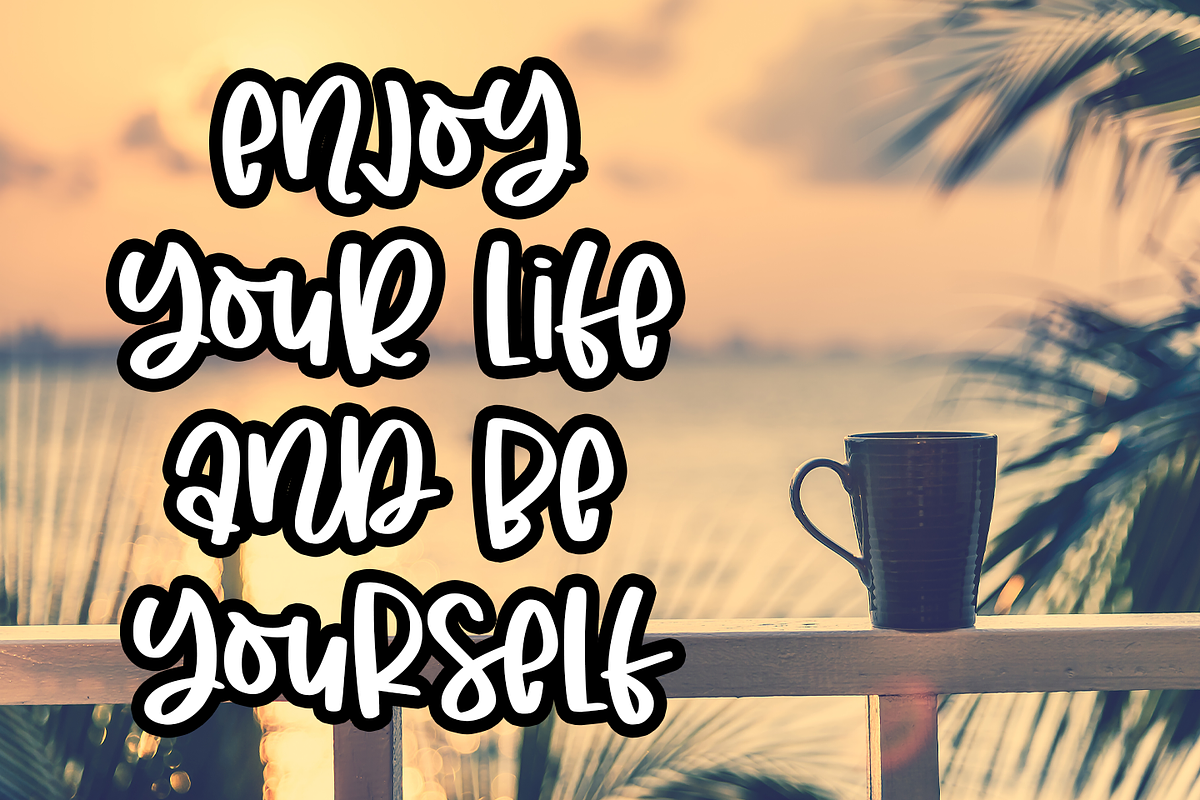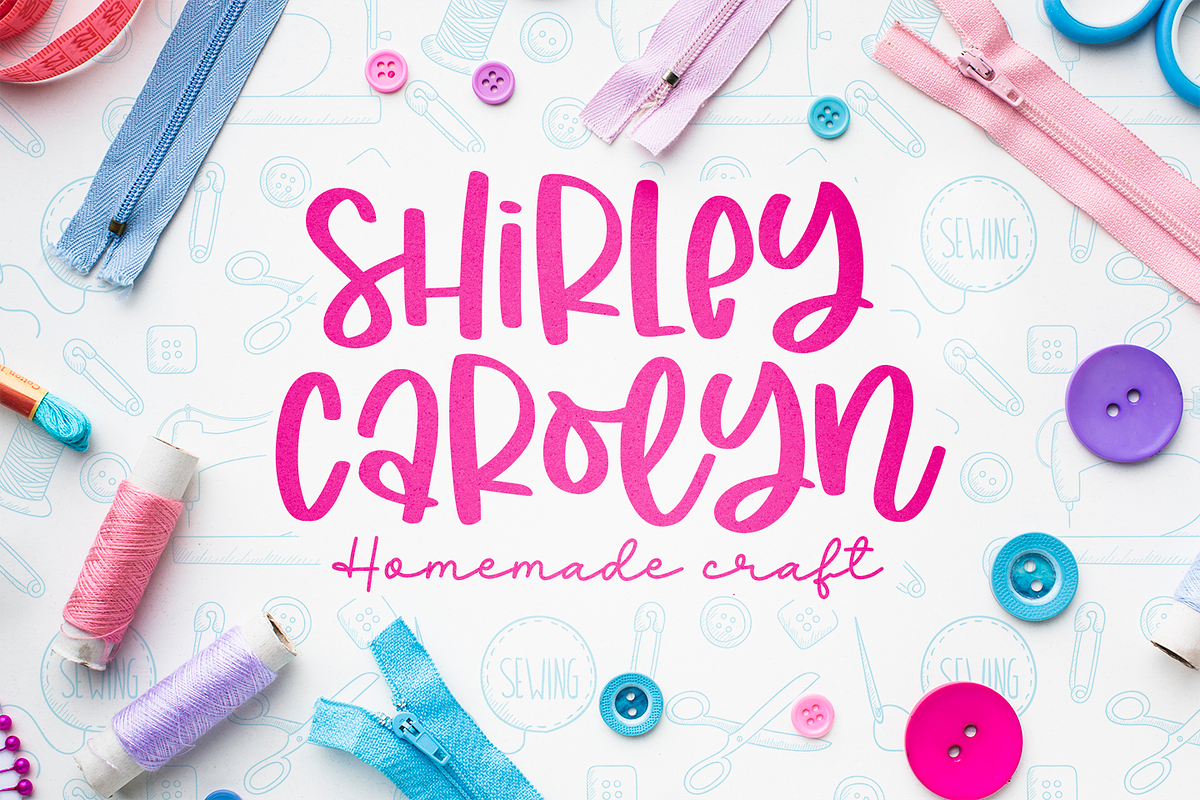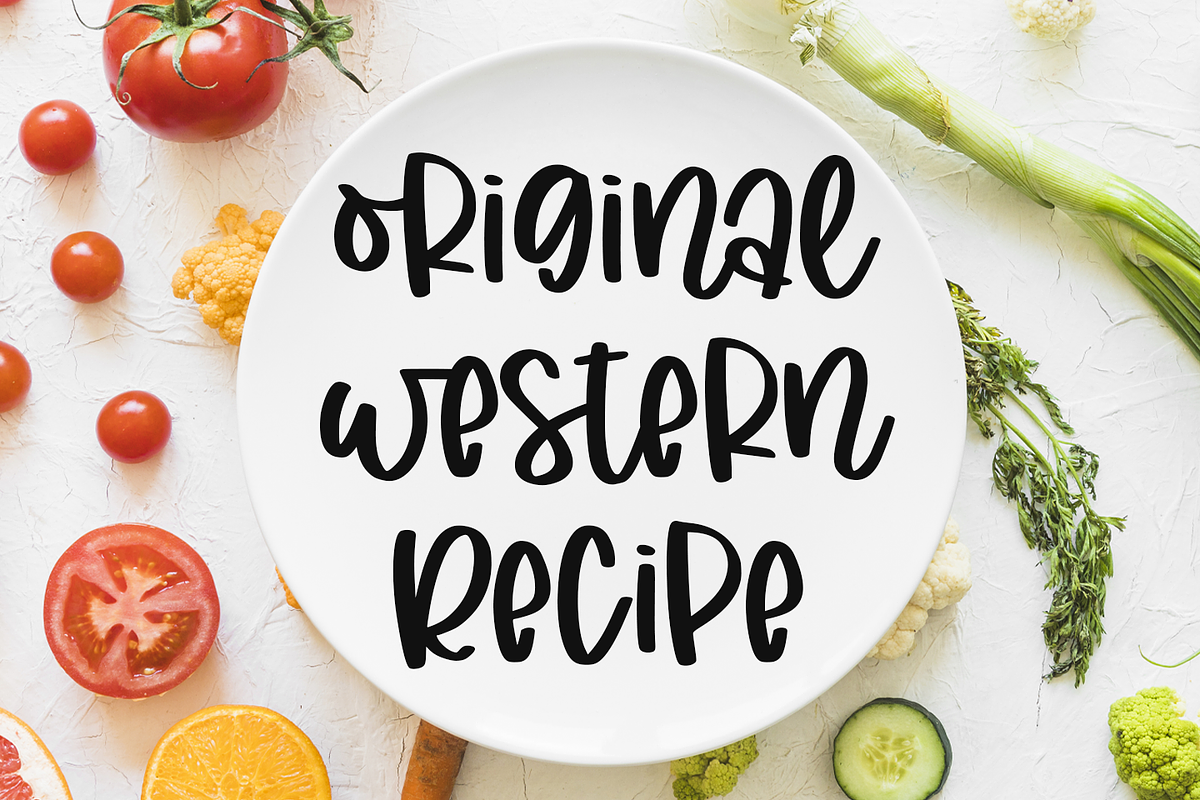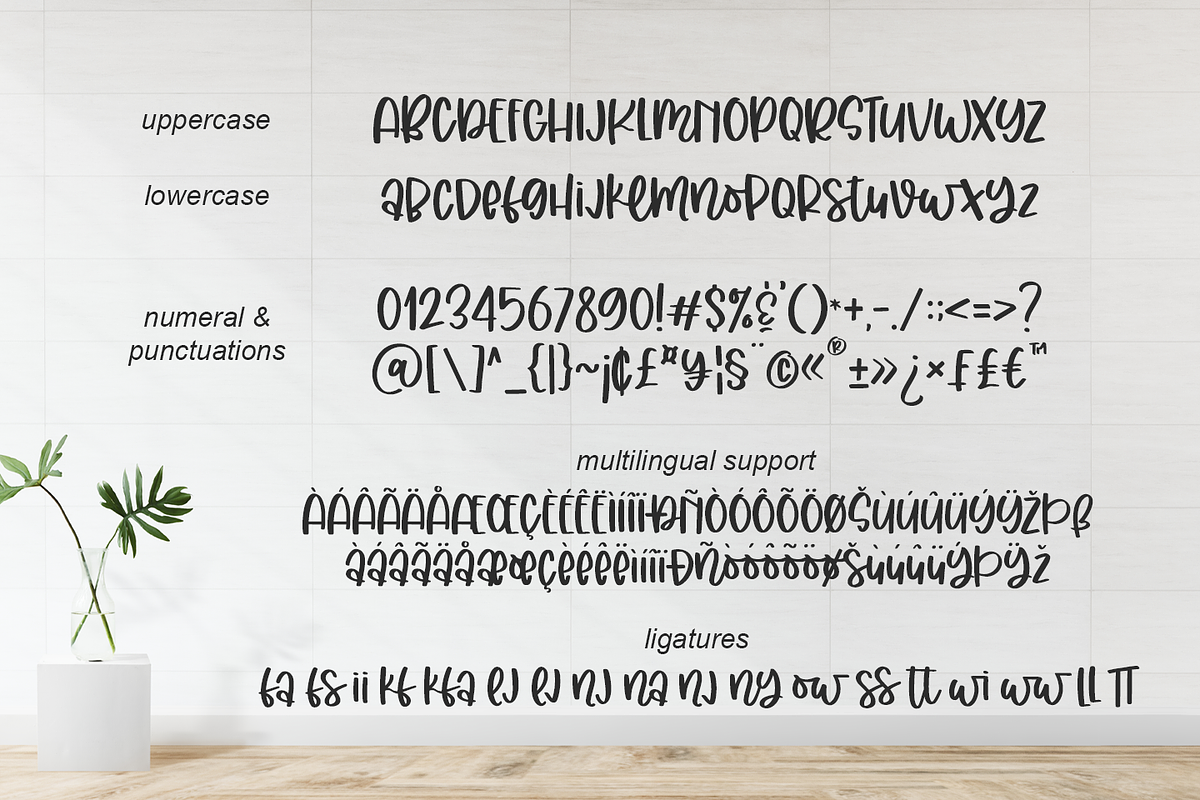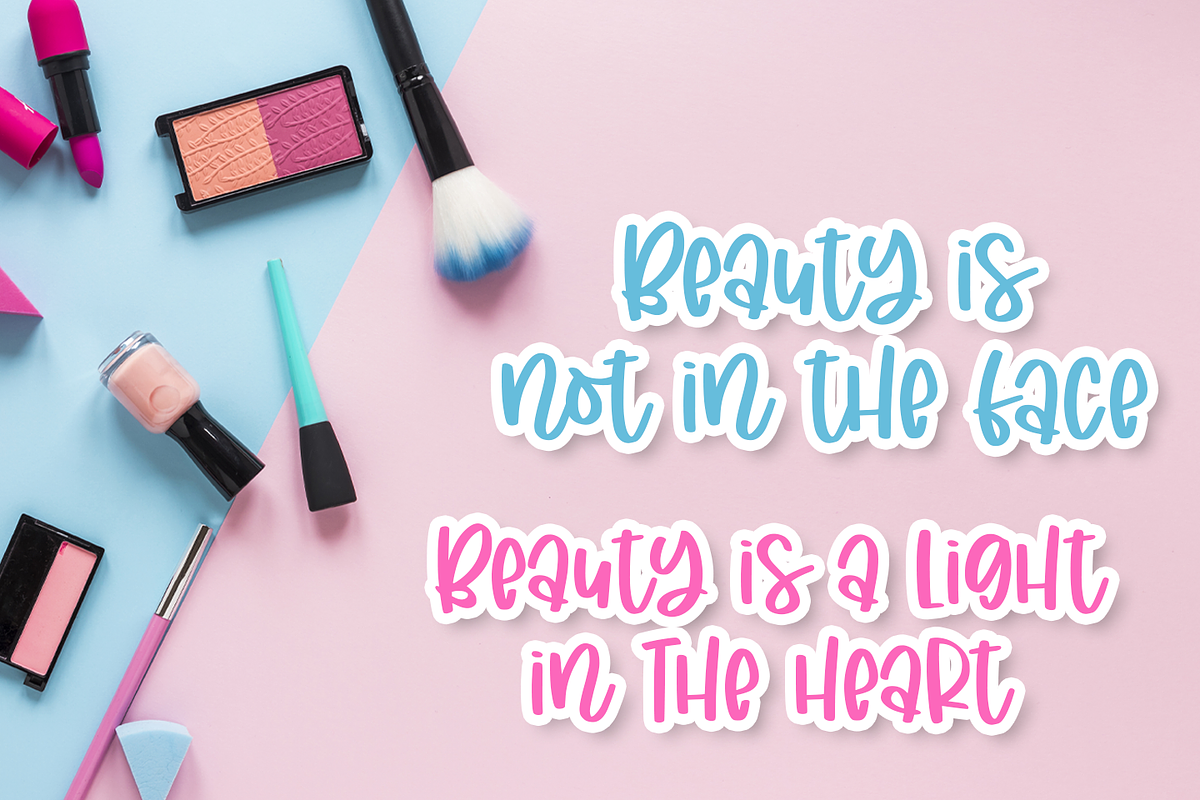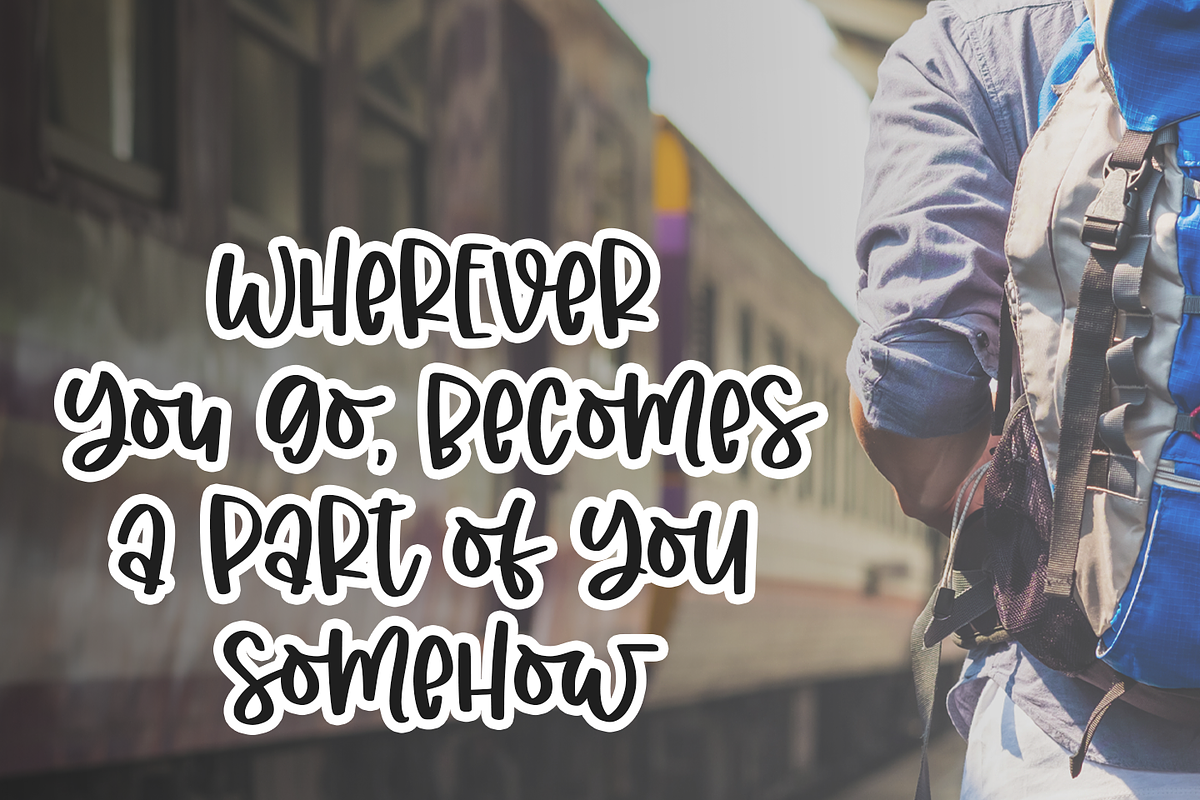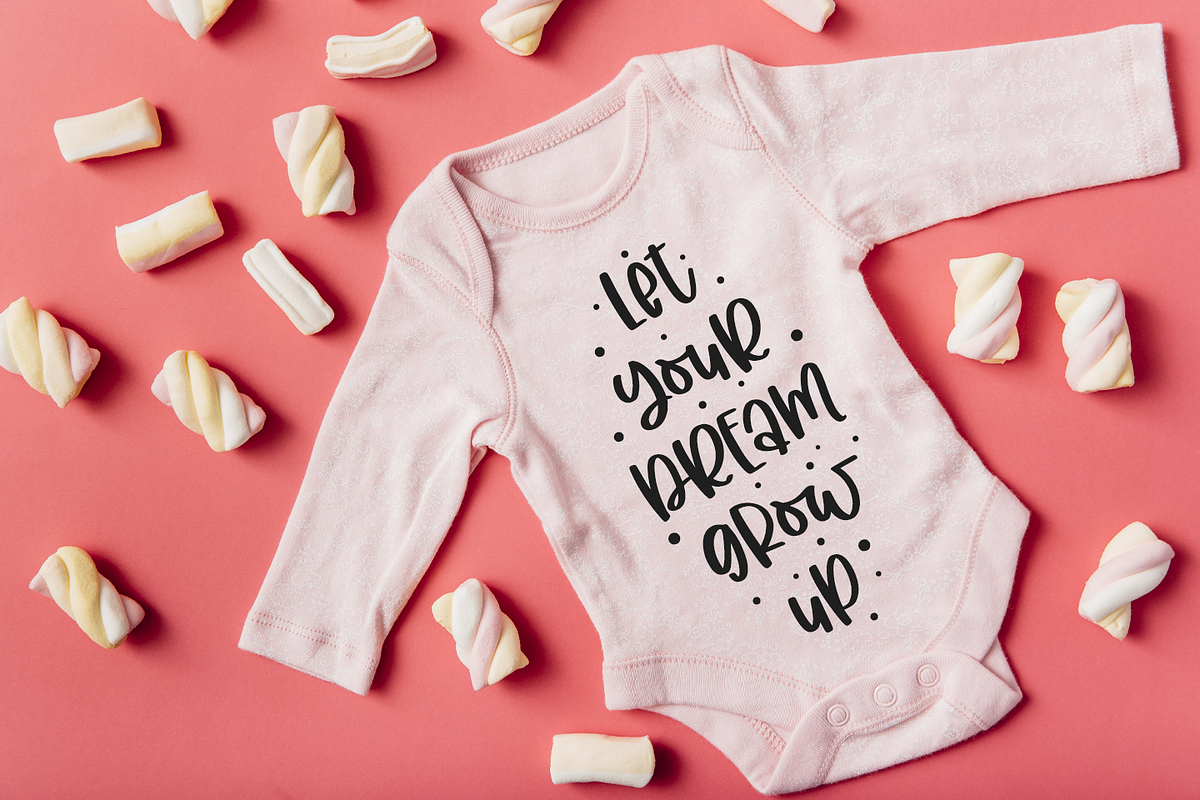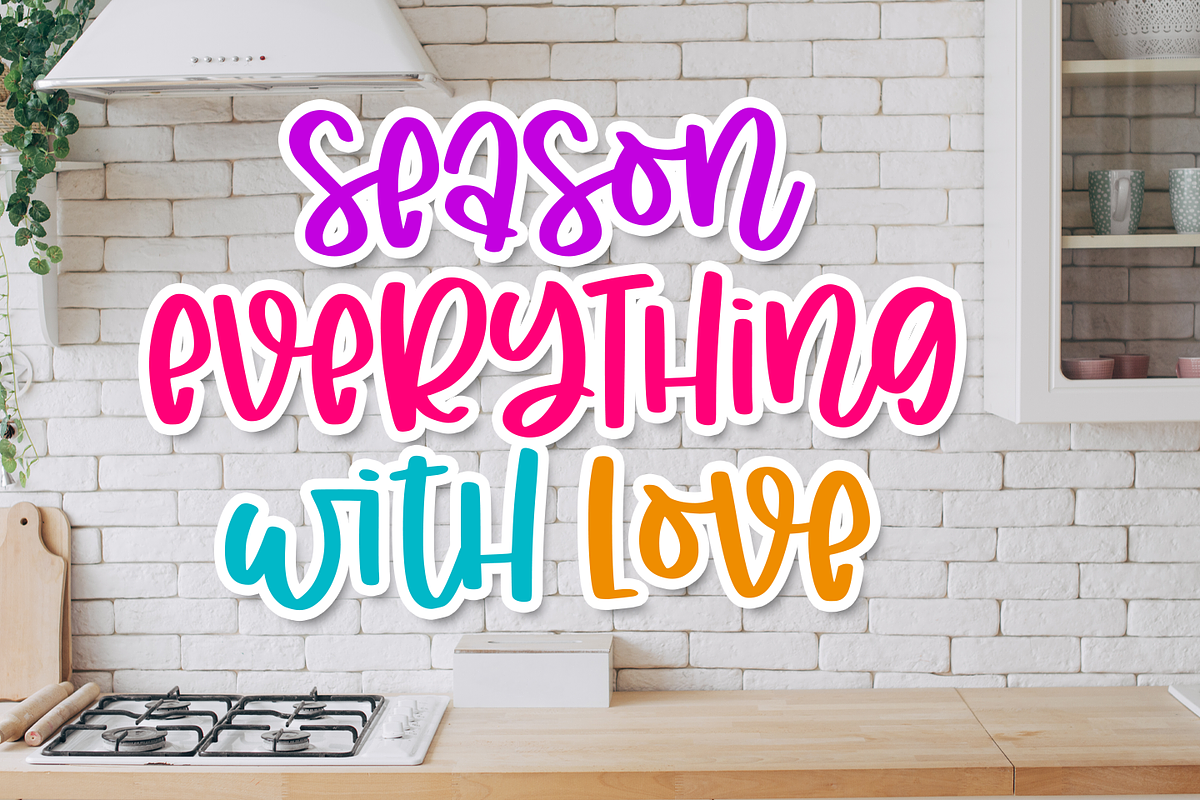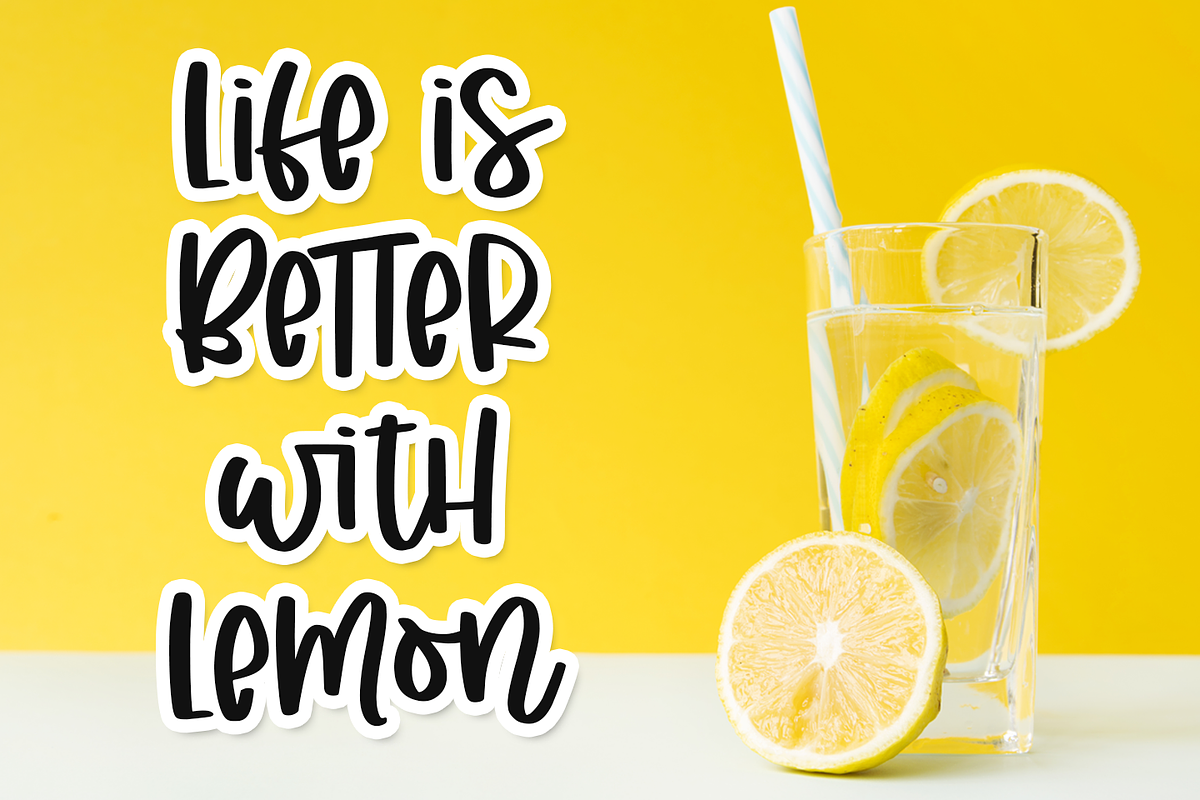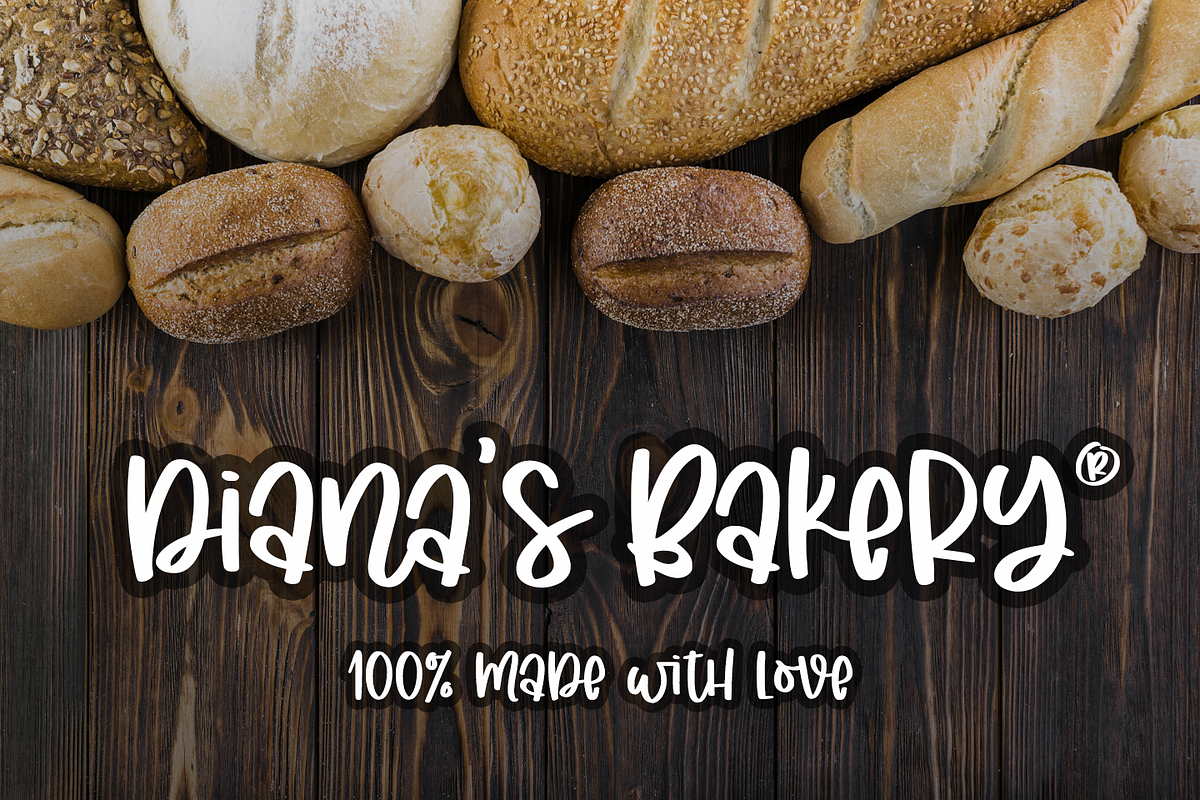
Joyce Kitchen
introducing
JOYCE KITCHEN - gorgeous quirky font -
It is great for branding, packaging, logo, quotes, t-shirt design, cards, banners, and anything your craft project. Uppercase and lowercase characters match each other. You can mix them.
- Numeral & Punctuations